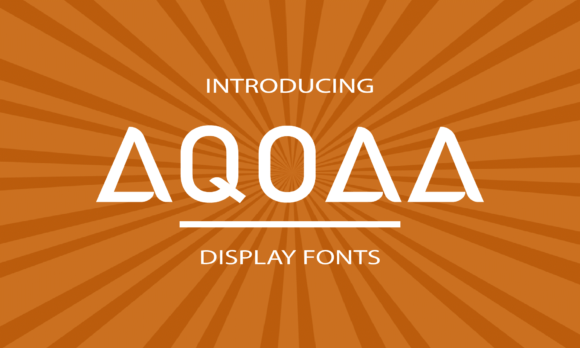
Aqoaa Font: Elevate Your Headlines with Boldness and Sophistication
In the world of typography, fonts play a crucial role in conveying messages, expressing emotions, and creating a lasting impression. When it comes to making a statement, a well-designed font can make all the difference. Introducing the Aqoaa Display Font Collection, a curated selection of bold and sophisticated fonts designed to elevate your headlines and titles. In this article, we’ll explore the features, benefits, and uses of the Aqoaa Font, and how it can help you captivate your audience with every word.
The Power of Typography: Why Fonts Matter
Typography is an essential element of graphic design, and fonts are the building blocks of typography. A font can convey a mood, evoke an emotion, or create a lasting impression. In today’s digital age, where attention spans are short, and competition is fierce, a well-designed font can help you stand out from the crowd. The right font can make your message more engaging, more readable, and more memorable.
The Aqoaa Display Font Collection is designed to help you make a statement. Whether you’re a designer, a marketer, or a business owner, our font collection offers a range of bold and sophisticated styles to suit your needs. From headlines and titles to signage and branding, our fonts are perfect for any project that requires a touch of elegance and sophistication.
Introducing Aqoaa Display Font Collection
The Aqoaa Display Font Collection is a carefully curated selection of fonts, each with its unique characteristics and distinct styles. Our font collection is designed to provide you with a range of options to suit your design needs. Whether you’re looking for a font that’s bold and edgy or elegant and refined, our collection has something for everyone.
Each font in our collection boasts striking characteristics, including:
- Bold and eye-catching designs
- Sophisticated and elegant styles
- Unique and distinct characteristics
- High-quality and crisp lines
- Perfect for headlines, titles, and signage
Key Features of Aqoaa Font
The Aqoaa Font collection offers a range of key features that make it an ideal choice for designers and businesses. Some of the key features include:
- Bold and eye-catching designs: Our fonts are designed to grab attention and make a lasting impression.
- Sophisticated and elegant styles: Our fonts are perfect for creating a sense of luxury and refinement.
- Unique and distinct characteristics: Each font in our collection has its own unique style and characteristics.
- High-quality and crisp lines: Our fonts are designed to be clear and readable, even at small sizes.
Benefits of Using Aqoaa Font
The Aqoaa Font collection offers a range of benefits for designers, businesses, and individuals. Some of the benefits include:
- Improved brand recognition: A well-designed font can help to create a consistent brand identity.
- Increased engagement: A bold and eye-catching font can help to grab attention and engage your audience.
- Enhanced credibility: A sophisticated and elegant font can help to create a sense of luxury and refinement.
- Easier to read: Our fonts are designed to be clear and readable, even at small sizes.
How to Use Aqoaa Font
- Headlines and titles: Use our fonts to create bold and eye-catching headlines and titles.
- Signage and branding: Use our fonts to create signage and branding that stands out.
- Digital and print materials: Use our fonts in digital and print materials, such as brochures, flyers, and posters.
- Customize your font: Experiment with different font sizes, colors, and styles to create a unique look.
Why Choose Aqoaa Font?
There are many font collections available, but the Aqoaa Font collection offers a unique combination of style, quality, and flexibility. Here are some reasons why you should choose Aqoaa Font:
- Unique and distinct styles: Our font collection offers a range of unique and distinct styles.
- High-quality designs: Our fonts are designed to be clear and readable, even at small sizes.
- Easy to use: Our fonts are easy to install and use.
- Affordable: Our font collection is affordable and offers great value for money.
The Aqoaa Display Font Collection is a powerful tool for designers, businesses, and individuals looking to elevate their headlines and titles. With its bold and sophisticated styles, unique characteristics, and high-quality designs, our font collection is perfect for making a lasting impression. Whether you’re looking to create a statement piece or simply want to add a touch of elegance to your designs, the Aqoaa Font collection is the perfect choice.